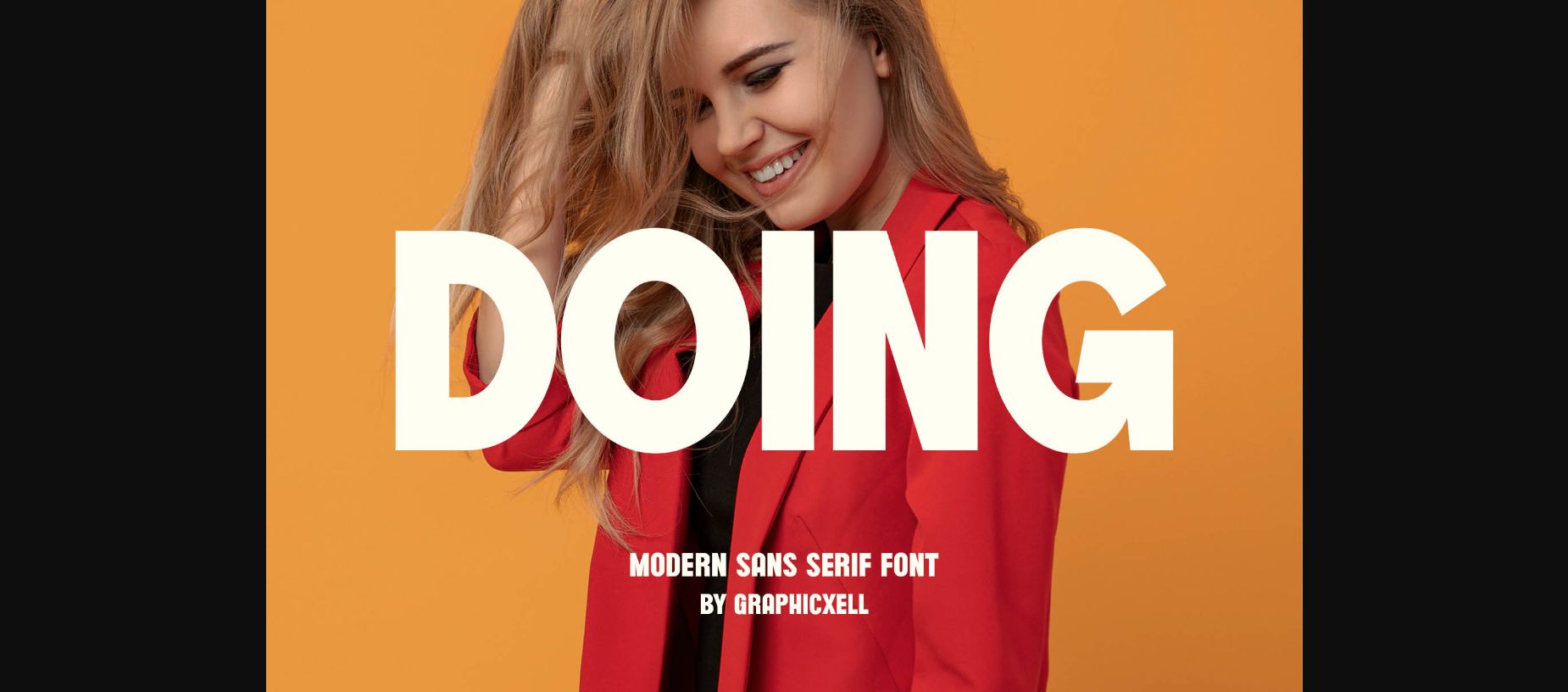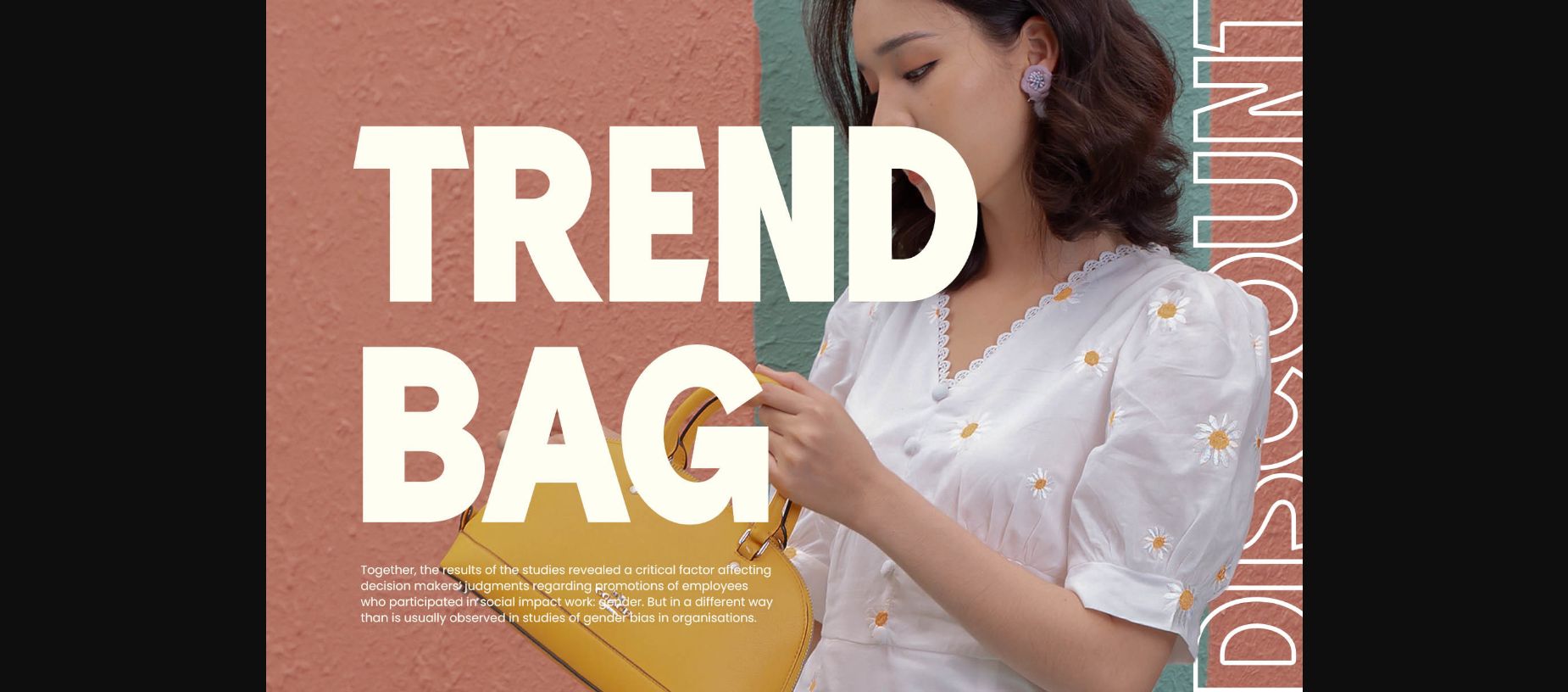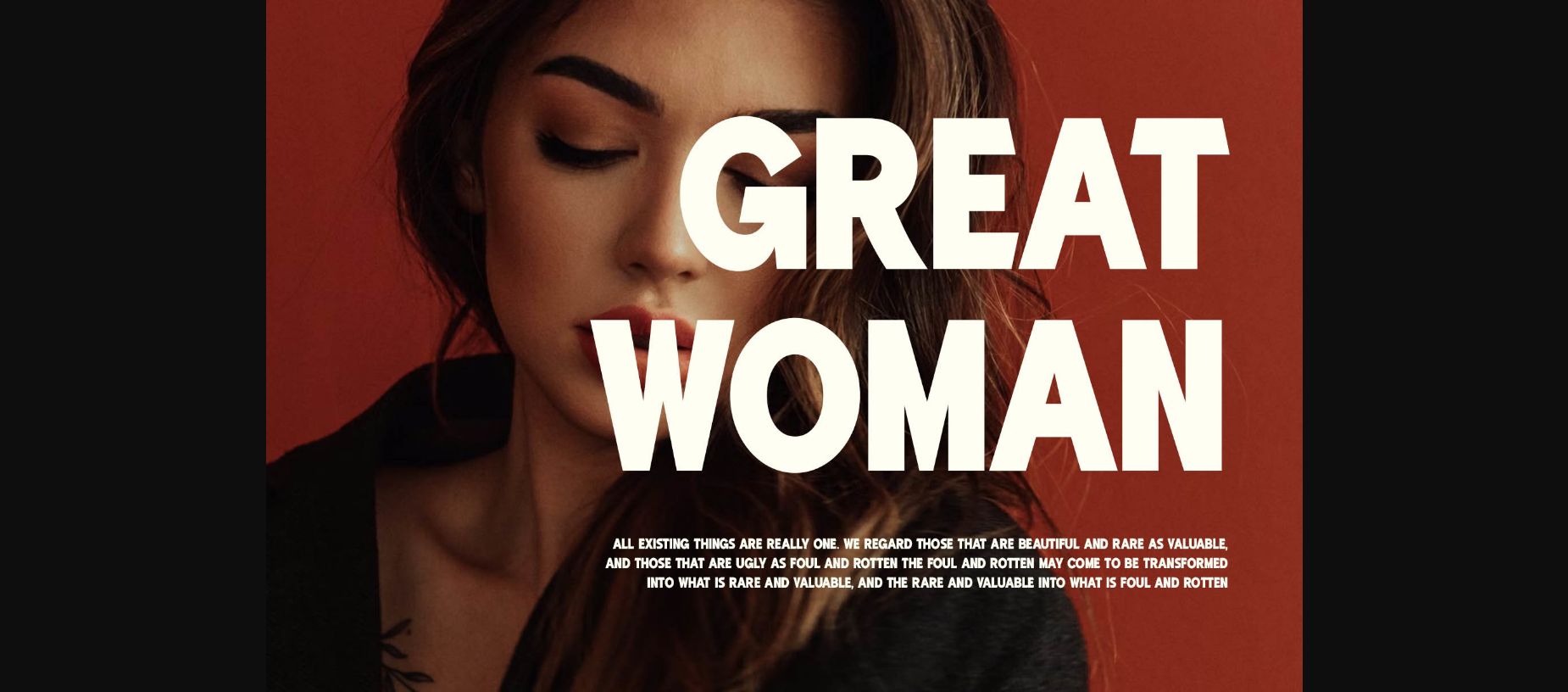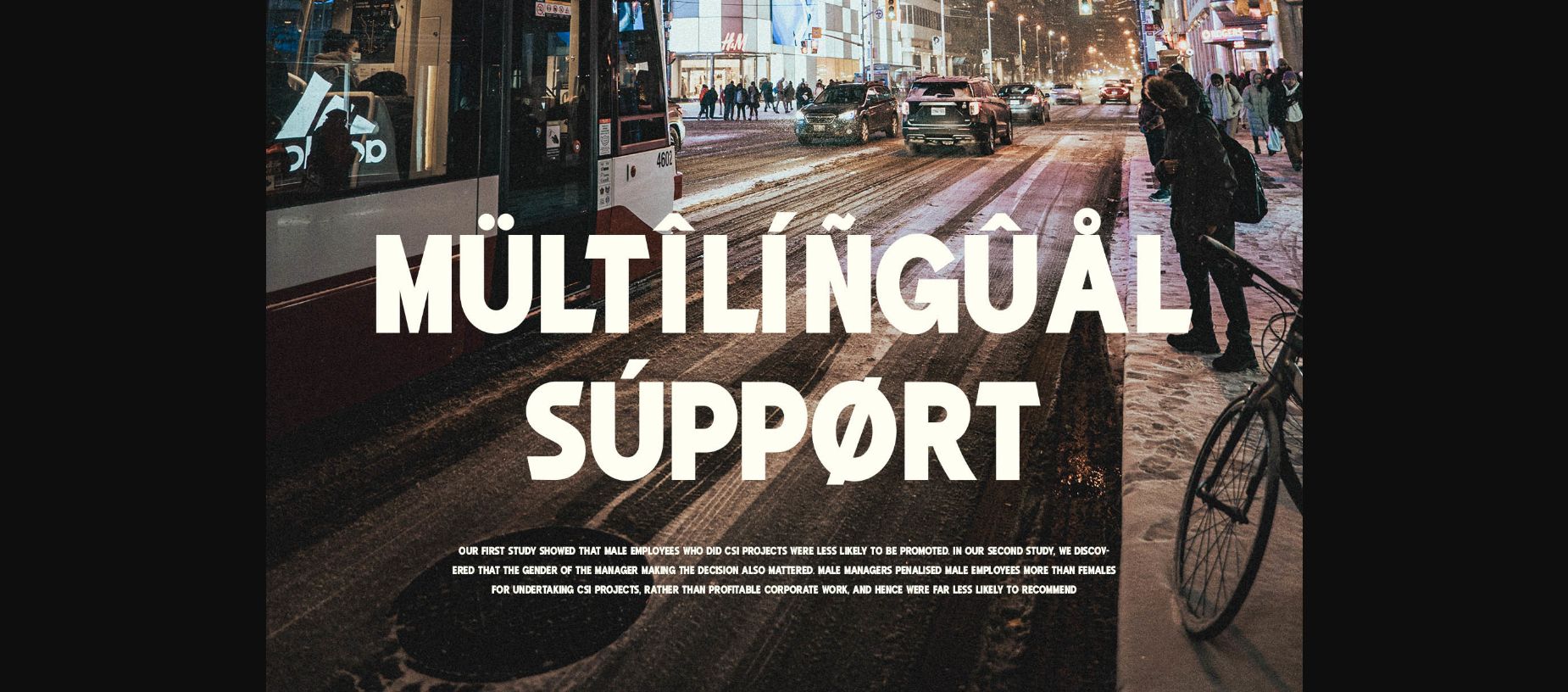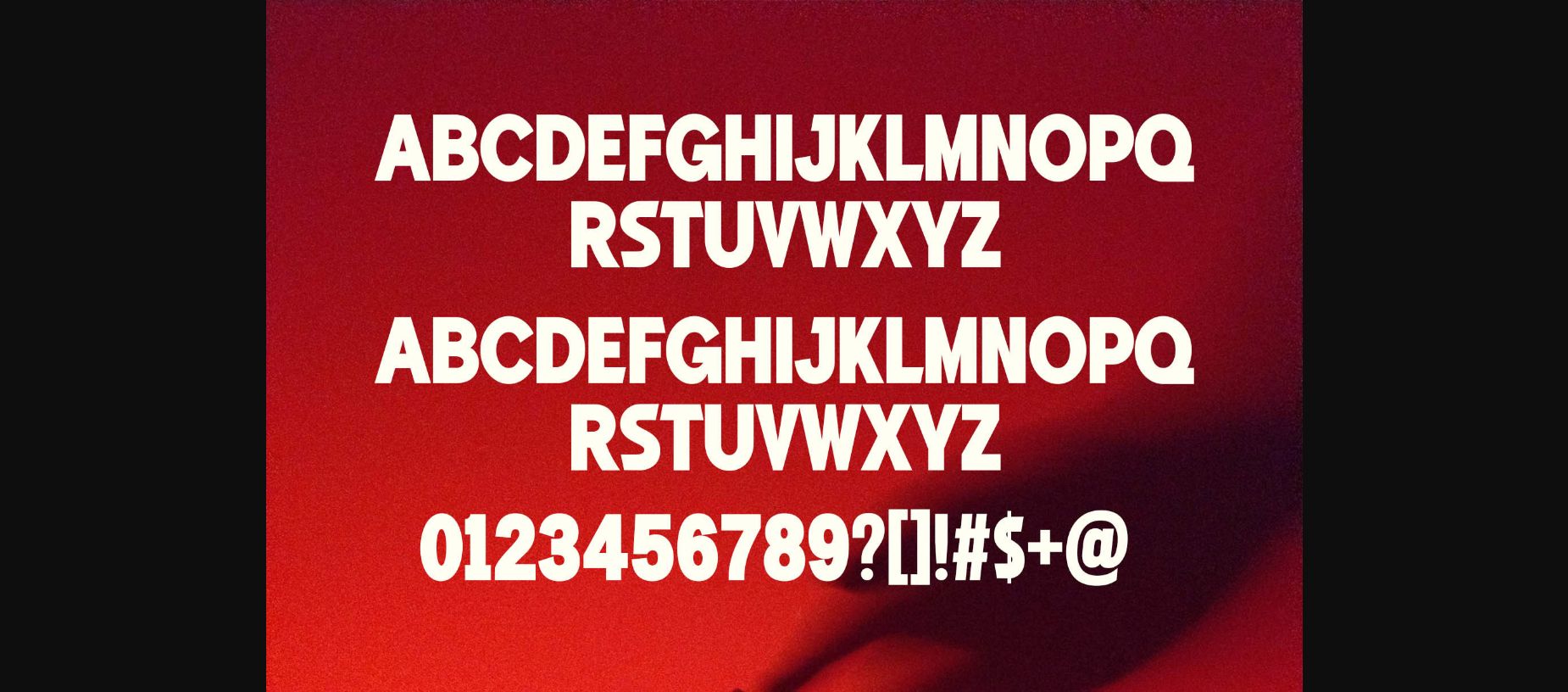
HomeSans Serif FontsDoing Font Sans Serif Fonts Doing Font FacebookXPinterestWhatsApp 1 of 8 ... Doing Font Poster 2... Doing Font Poster 3... Doing Font Poster 4... Doing Font Poster 5... Doing Font Poster 6... Doing Font Poster 7... Doing Font Poster 8... About Doing Font inspired by the famous minimalist logo perfect for the purposes of designing templates, brochures, videos, advertising branding, logos, invitation, layout design, elegant crafting, beauty design and other DOWNLOAD NOW People also explored Darlington Anklettes Font Yellow Rabbit Font Rumaisha Font Christmas Font Balgen Font Still Loving You Font Magnanimous Font Calvin Fallen Font 315 0 TagsDoingDoing Font Previous articleEnergy FontNext articleEmerged Font LEAVE A REPLY Cancel reply Comment: Please enter your comment! Name:* Please enter your name here Email:* You have entered an incorrect email address! Please enter your email address here Website: Save my name, email, and website in this browser for the next time I comment. Personal Use Free Austin Personal Use Free Read more about this font Adrenaline Personal Use Free Read more about this font Aliqa Personal Use Free Read more about this font Proudly Personal Use Free Read more about this font BLOG How to Install and Use Fonts on Windows, macOS, and Web Projects How to Install and Use Fonts on Windows, macOS, and Web Projects Fonts are a crucial part of design and branding. Whether you’re designing a... Where to Buy American Fonts Online in 2024 Best Fonts for YouTube Videos: Make Your Thumbnails Stand Out Top 10 Handwritten Fonts That Elevate Your Designs